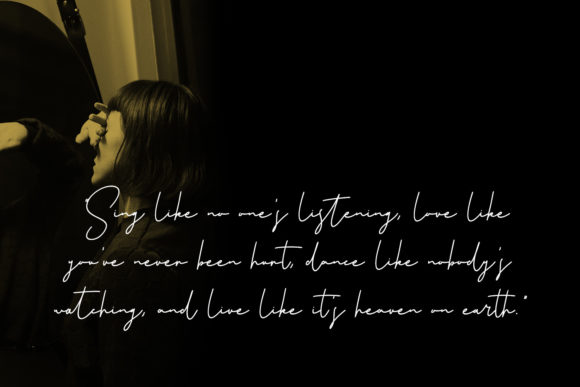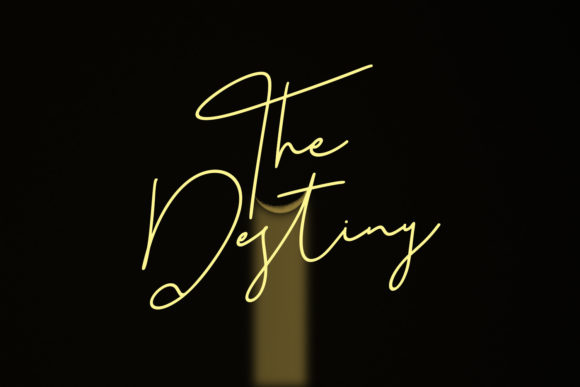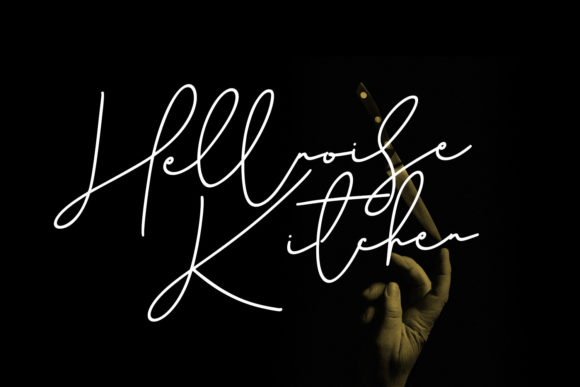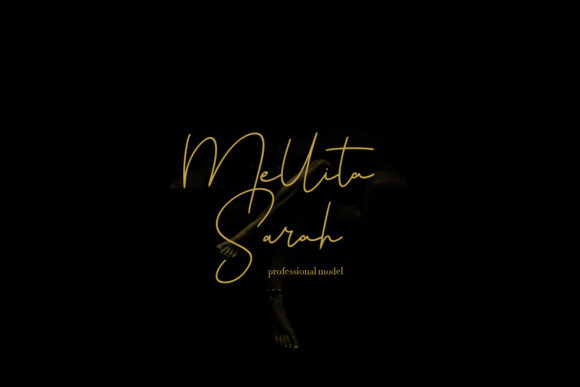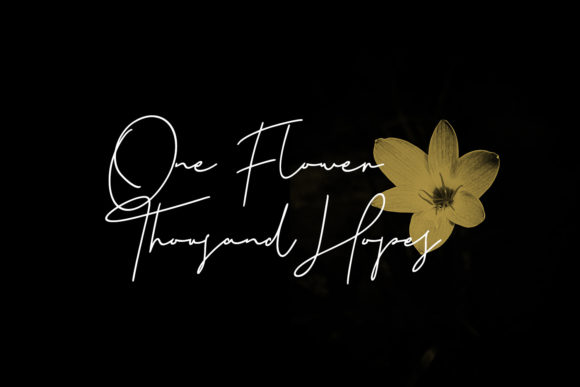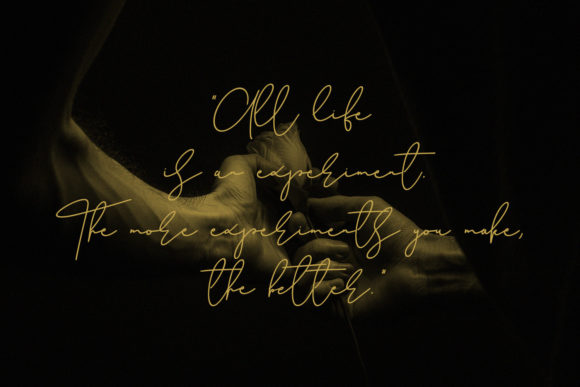
Introduction to Plastikcycle Font
Plastikcycle is a casual script font with clean regular contrast strokes to give your creations the exquisite look they deserve.
Fun and beautifully flowing, this typeface is perfect for watermarks, logos, short texts, and more .
Key Features of Plastikcycle Font